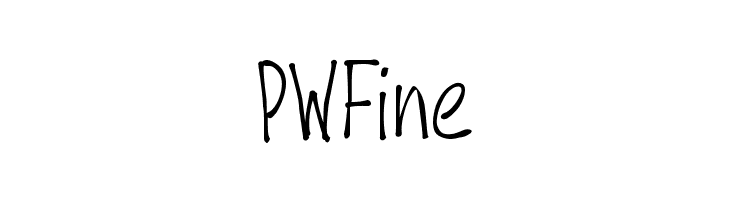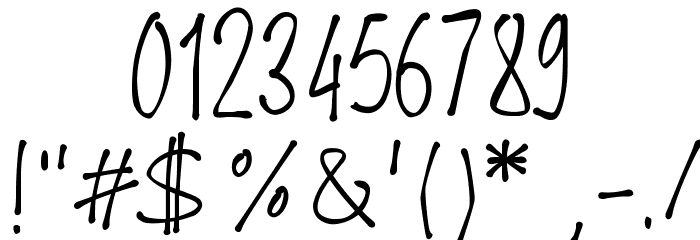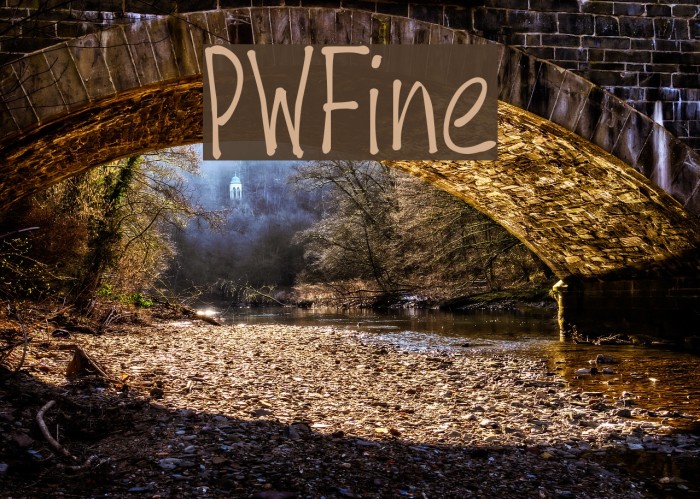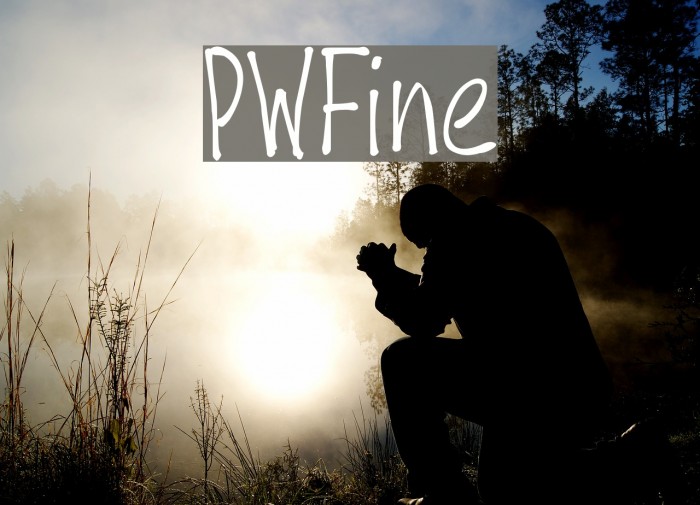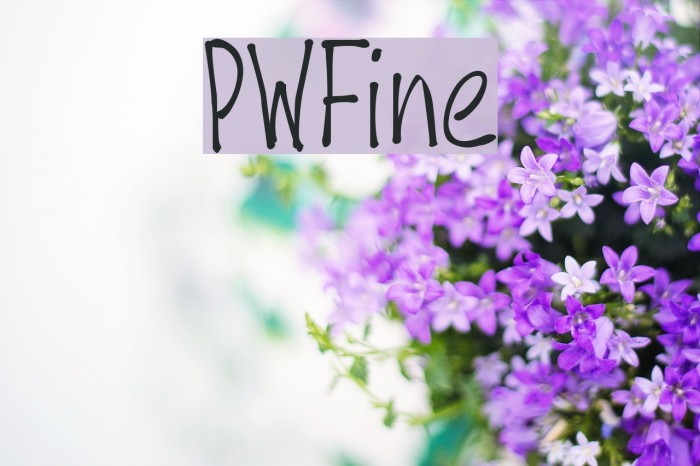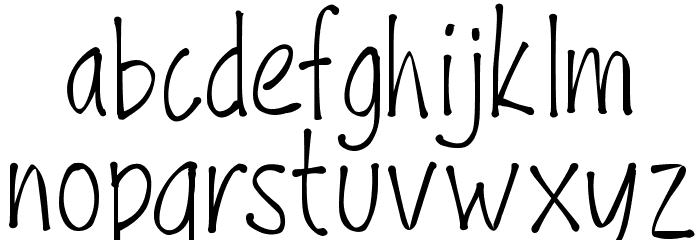
PWFine Font
This font features a playful and informal handwritten style, characterized by its tall, narrow letters with a slightly irregular baseline. The strokes are consistent in width, giving it a uniform appearance, yet the slight tilt and varying heights of the characters add a touch of whimsy. The uppercase letters are bold and prominent, while the lowercase letters maintain a casual flow. Numbers and special characters follow the same playful aesthetic, making the font suitable for creative and informal applications. Its overall appearance is friendly and approachable, perfect for projects that require a personal touch.
A playful, handwritten font with tall, narrow letters and a casual, informal style.
• Proposed Projects: Ideal for greeting cards, children's books, playful branding, and social media graphics.
• Category: Handwritten
• Bold: No
• Italic: No
• Weight: Regular
• Width: Condensed
• Character Spacing: Normal
• Contrast: Low
• Overall Style: Casual
• Use Case: Headlines, Informal text, Creative projects